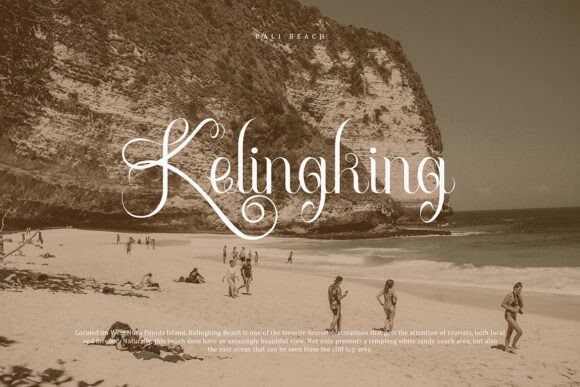
Apple Font
Apple is a romantic and retro script font, perfect for adding a touch of luxury to your designs. Its elegant loops and swirls give it an exclusive feel, perfect for weddings and special occasions.